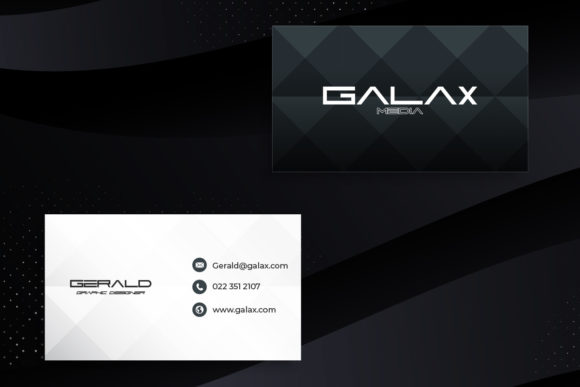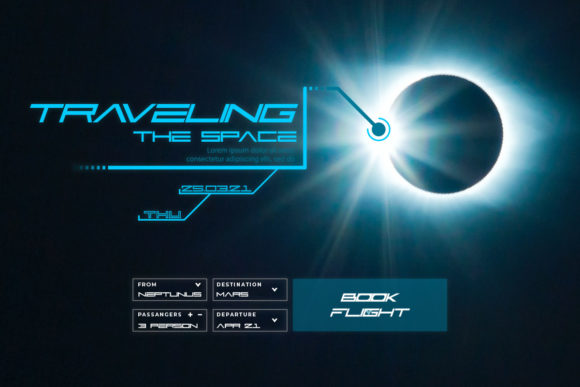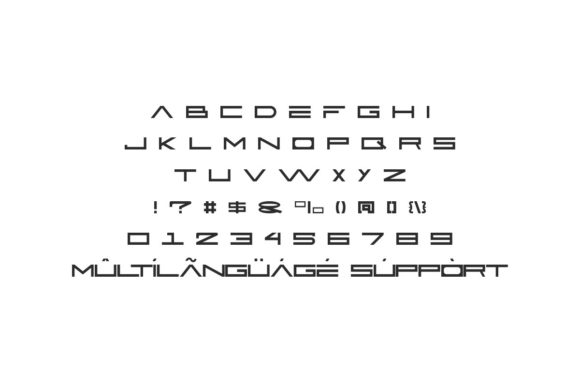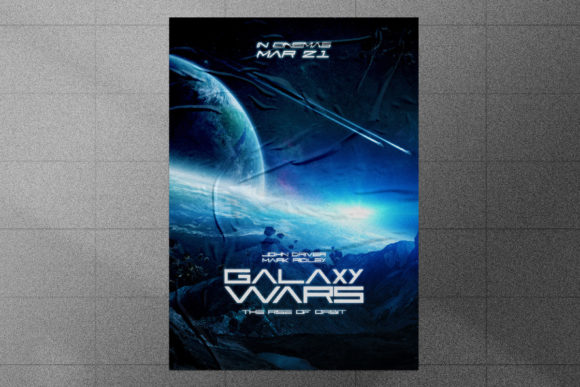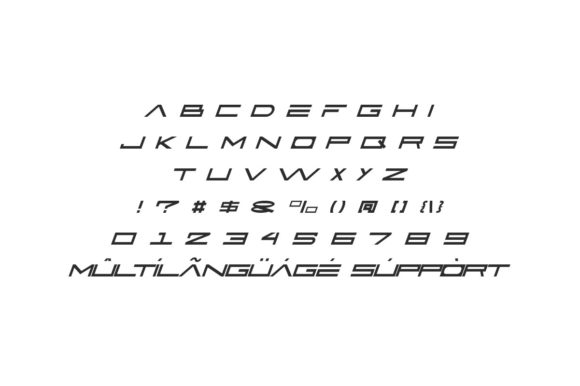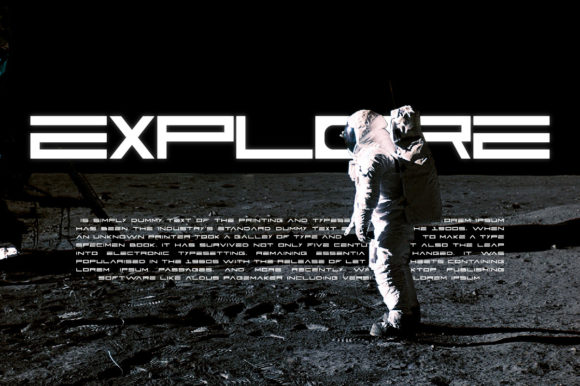
The Ultimate Design Hack: Unleashing the Power of Active Space Font
I’ll never forget the time I was working on a project for a client who needed a modern and edgy font to match their brand’s vibe. I spent hours scouring the internet for the perfect one, but nothing seemed quite right. That was until I stumbled upon Active Space Font. It was like a breath of fresh air – sleek, sophisticated, and versatile. In this article, I’ll share my experience with Active Space Font, its features, and how to make the most of it in your designs.
An Honest Review of Active Space Font
So, what makes Active Space Font so special? Let’s dive into the good stuff and a few quirks I’ve discovered.
- ✨ Modern and edgy aesthetic: Active Space Font has a unique, cool vibe that instantly elevates any design.
- ✅ Highly versatile: Whether you’re working on a logo, poster, or social media graphic, this font adapts seamlessly.
- 💡 Excellent for headlines and titles: The font’s bold and sleek design makes it perfect for grabbing attention.
While Active Space Font is an amazing addition to any design library, there are a few things to keep in mind:
- ⚠️ Legibility at small sizes: Like many display fonts, Active Space can become a bit tricky to read at smaller sizes (below 10pt). Use it for headlines and titles, and consider a complementary font for body text.
- 🤔 Limited use of OpenType features: While Active Space supports some OpenType features, it’s not fully packed with advanced glyphs or stylistic alternates. Still, what it offers works beautifully within its design scope.
The Backstory of Active Space Font
Active Space Font was designed with the modern digital landscape in mind. Its creators aimed to craft a font that could seamlessly blend into various design contexts, from digital interfaces to print materials. Inspired by the sleek lines of futuristic architecture and the simplicity of digital icons, Active Space Font embodies both innovation and accessibility.
| Font Name | Active Space Font |
| Author | vintype |
Q: Is Active Space Font suitable for body text?
A: While Active Space Font is stunning for headlines and titles, it’s not ideal for lengthy body text due to its design as a display font. For optimal readability, consider pairing it with a complementary font for body text.
Q: Does Active Space Font support OpenType features?
A: Active Space Font supports some OpenType features, but it’s not fully packed with advanced glyphs or stylistic alternates. It’s still incredibly versatile and works beautifully within its design scope.